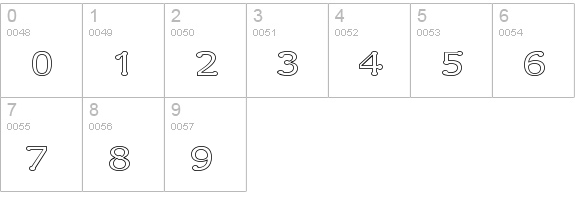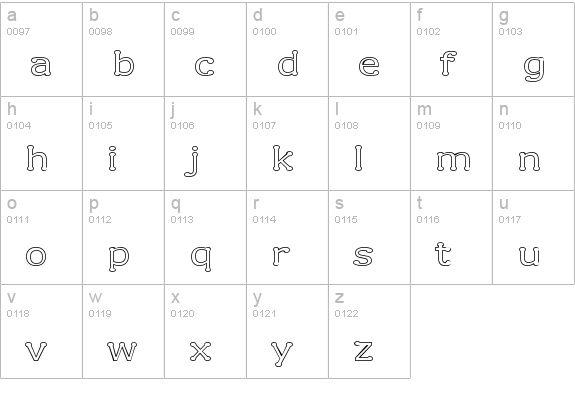
Drummon Outline Font Details
Drummon Outline font is a stylish and modern typeface that is perfect for adding a touch of sophistication to your designs. With its clean lines and elegant appearance, this font is sure to make a statement. The outline style of the font gives it a unique and eye-catching look that is both contemporary and versatile. Whether you are creating a logo, poster, or any other design project, Drummon Outline font is sure to elevate your work to the next level. The best part about Drummon Outline font is that it is completely free to download at FontsMarket.com. This means that you can easily access this stunning font without having to worry about any costs. Simply head over to FontsMarket.com and start using Drummon Outline font in your projects today. With its sleek design and professional quality, Drummon Outline font is a must-have for any designer looking to make a lasting impression.